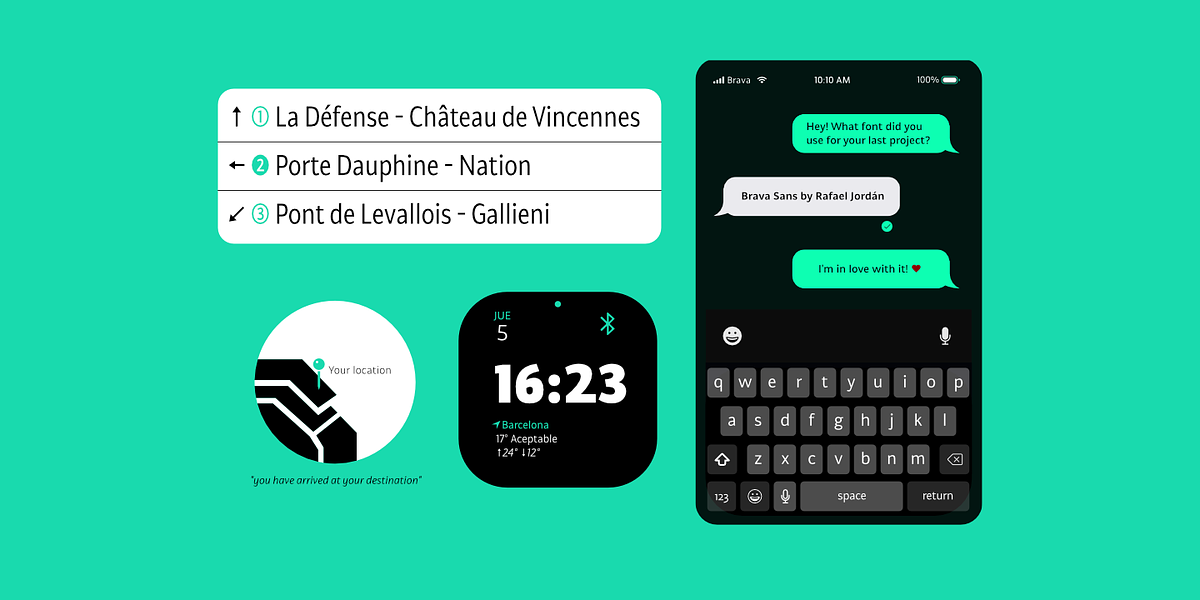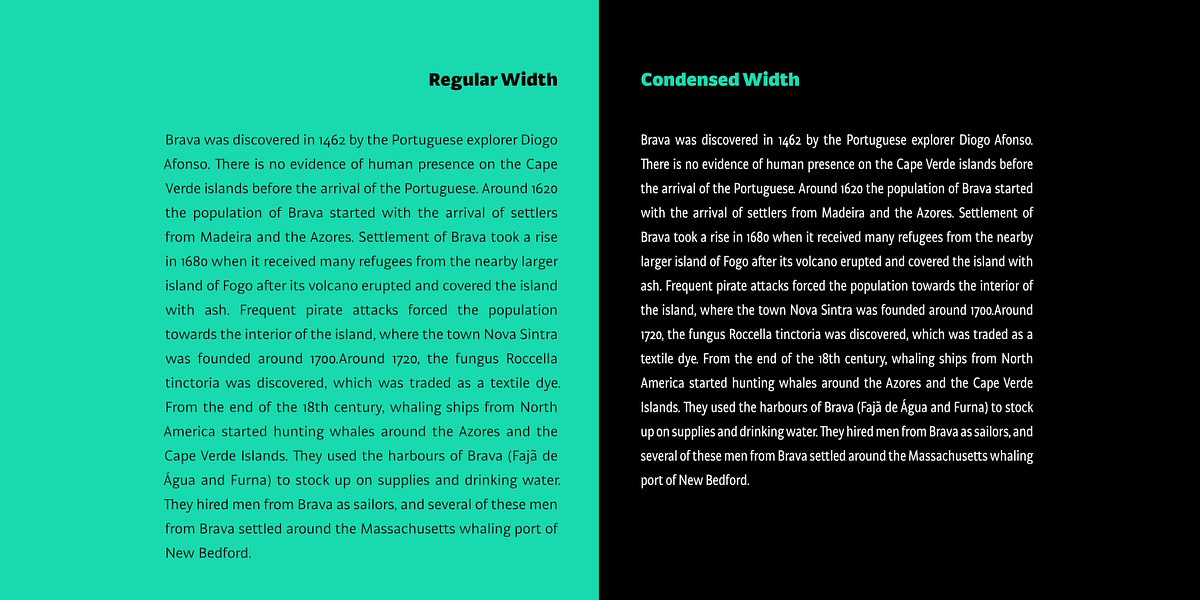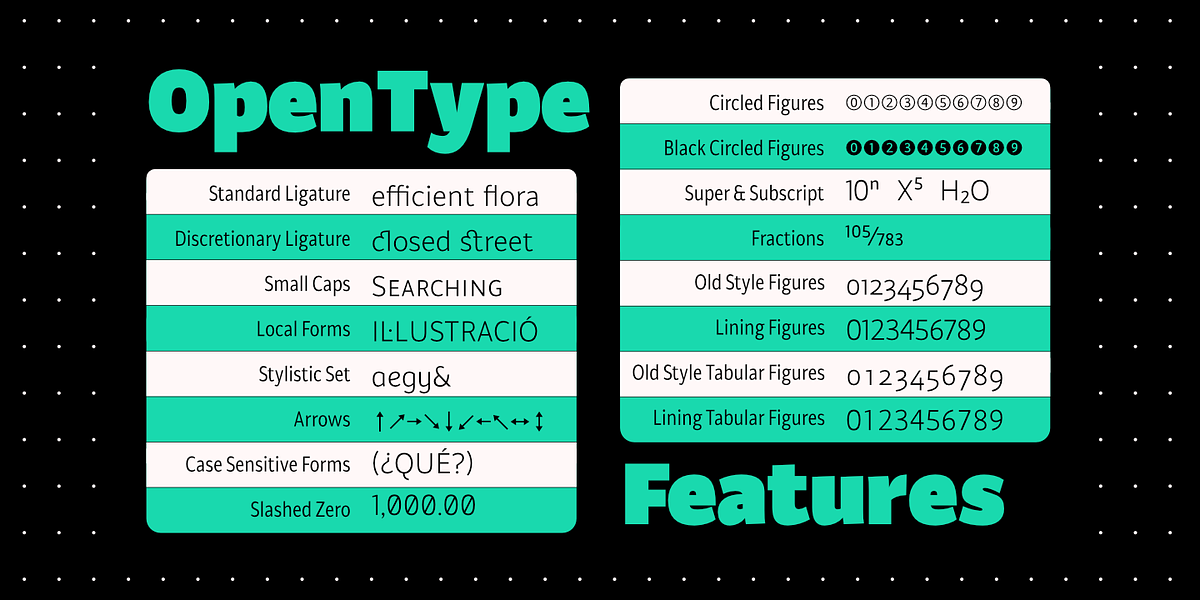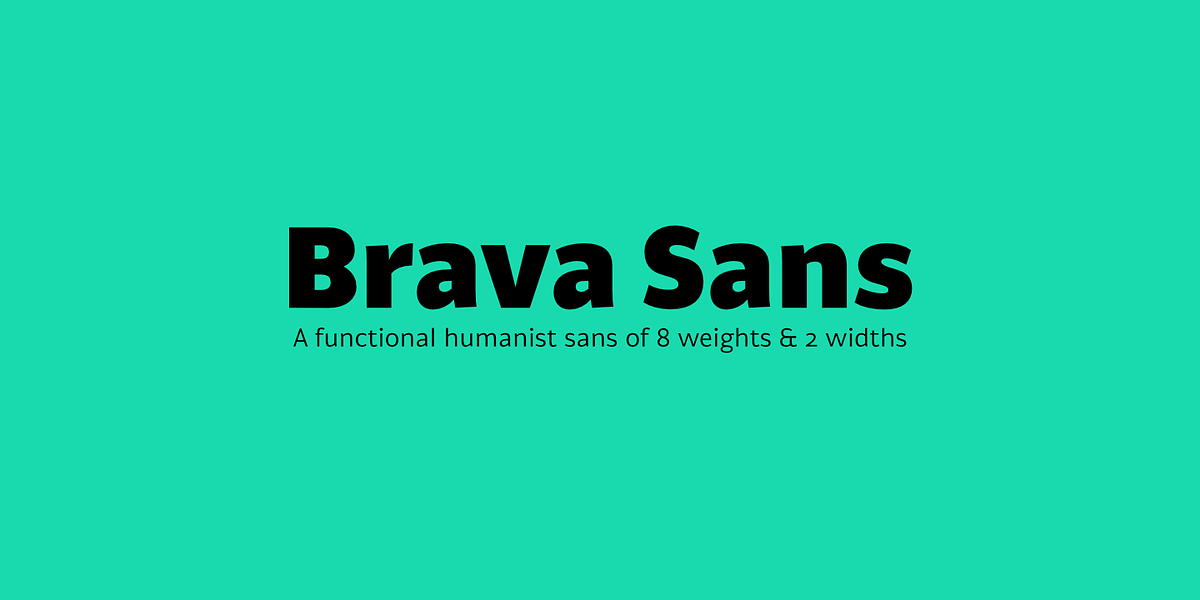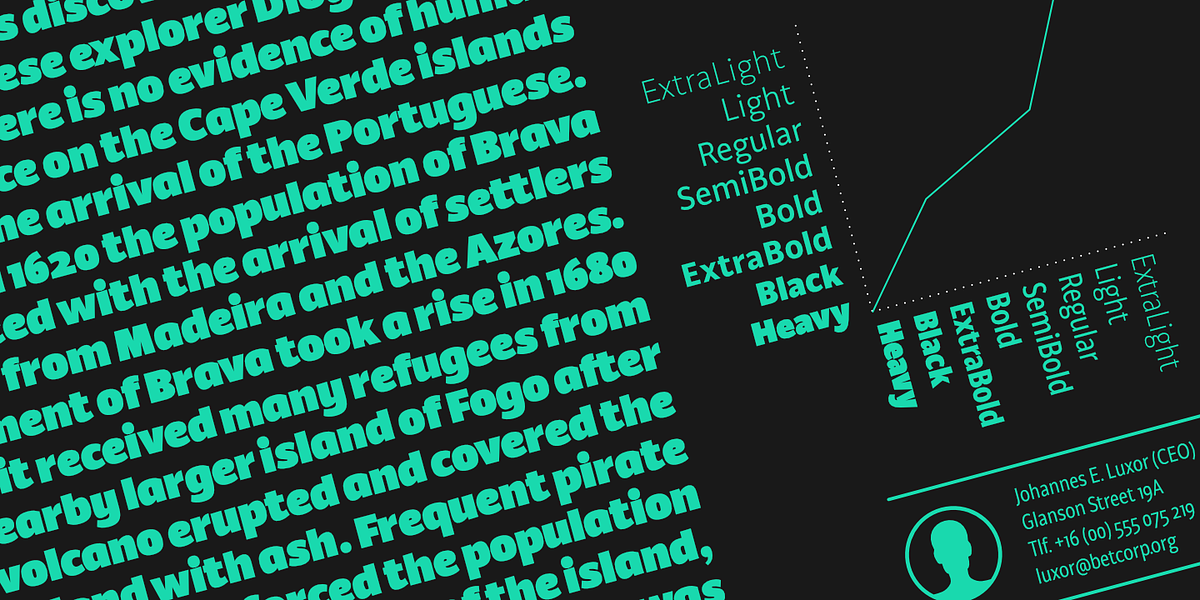
Brava Sans
Brava Sans is a humanist sans serif typeface designed for editorial purposes. It features a monolinear appearance with open counters and a tall x-height, giving it a neutral yet modern feel. The font family includes 8 weights, 2 widths, and true italics. Brava Sans also boasts a wide range of OpenType features, including small caps, ligatures, a lowercase superior and inferior set, and a stylistic set. This makes it a versatile tool for designers working on various projects.